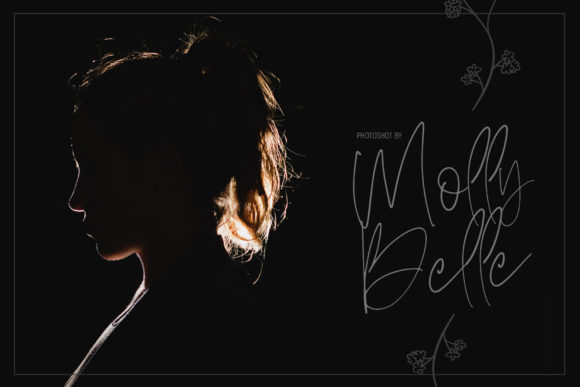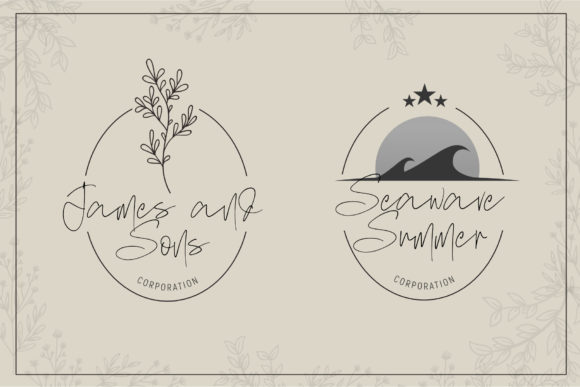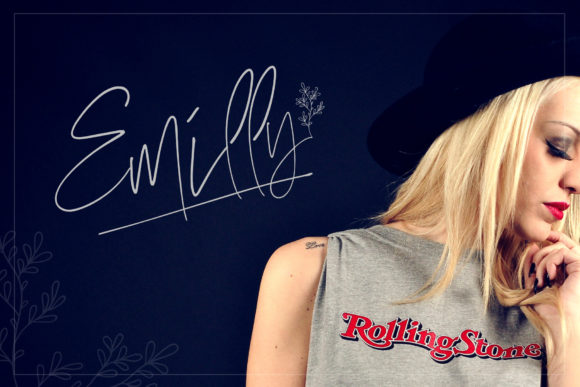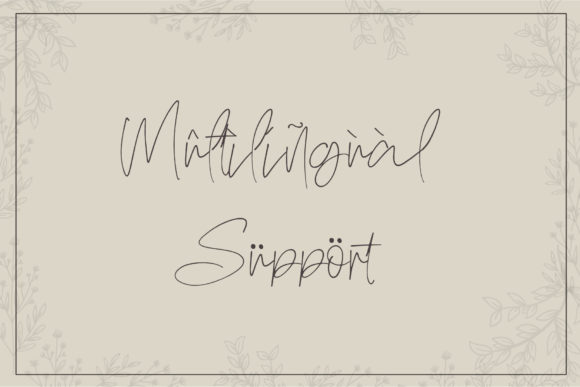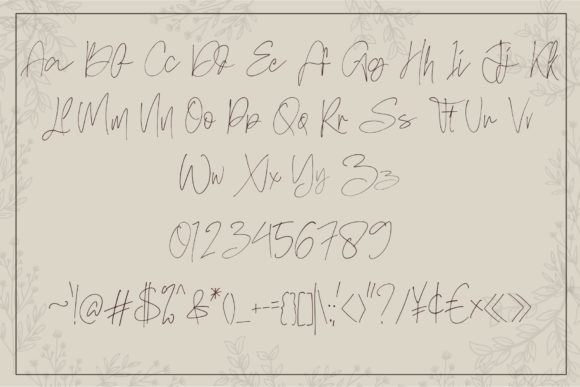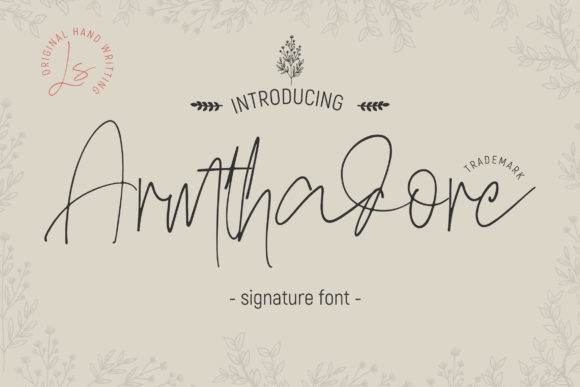
Introducing Armthadore Font: Elevate Your Designs with Elegant Handwritten Script
Are you a designer or crafter looking for a font that adds a touch of elegance and sophistication to your creations? Look no further than Armthadore Font, a stunning handwritten script font that is sure to take your designs to the next level. With its beautiful, flowing lines and classic charm, Armthadore Font is the perfect choice for a wide range of design projects, from wedding invitations and thank you cards to quotes, greeting cards, logos, and business cards.
The Characteristics of Armthadore Font
Armthadore Font is a carefully crafted handwritten script font that boasts an elegant and beautiful look. Its unique characteristics make it stand out from other fonts, and its versatility ensures that it can be used in a variety of design contexts. Here are some of the key features that make Armthadore Font so special:
- Elegant and Beautiful: Armthadore Font has a sophisticated and refined look that is perfect for designs that require a touch of luxury and elegance.
- Handwritten Script: The font’s handwritten script style gives it a personal and intimate feel, making it ideal for designs that require a human touch.
- Flowing Lines: Armthadore Font features flowing lines that create a sense of movement and fluidity, adding to its beauty and elegance.
- Classic Charm: The font’s classic charm ensures that it will never go out of style, making it a great investment for designers and crafters.
Uses for Armthadore Font
Armthadore Font is a versatile font that can be used in a wide range of design projects. Here are some of the most popular uses for this stunning font:
- Wedding Invitations: Armthadore Font is perfect for wedding invitations, adding a touch of elegance and sophistication to your designs.
- Thank You Cards: The font’s beautiful, flowing lines make it ideal for thank you cards, creating a sense of gratitude and appreciation.
- Quotes: Armthadore Font is a great choice for quotes, adding a touch of elegance and refinement to your designs.
- Greeting Cards: The font’s classic charm makes it perfect for greeting cards, creating a sense of warmth and personality.
- Logos: Armthadore Font can be used to create stunning logos that reflect your brand’s personality and style.
- Business Cards: The font’s elegant and beautiful look makes it ideal for business cards, creating a great first impression.
Why Choose Armthadore Font?
- Elegant and Sophisticated: The font’s elegant and sophisticated look ensures that your designs will be taken seriously.